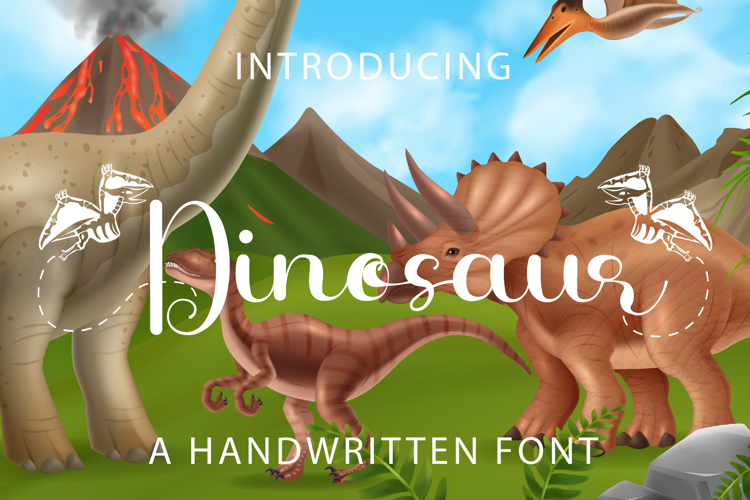
Dinosaur Font
Dinosaur is a stylish and incredibly elegant decorative handwritten font. It looks stunning on wedding invitations, thank you cards, quotes, greeting cards, logos, business cards, and every other design which needs a handwritten touch.